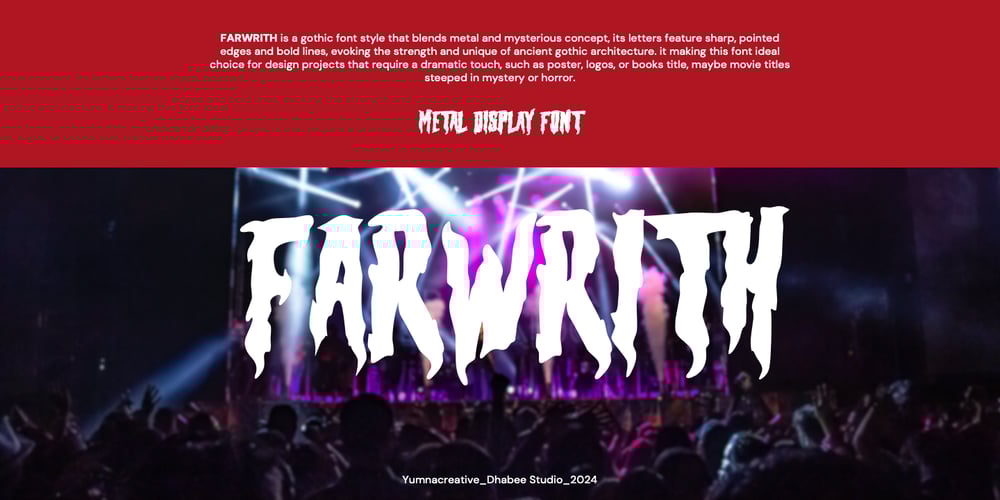
Farwrith
Farwrith font
Farwrith Font Family was designed by Dhimas Habibie and published by Yumnacreative. Farwrith contains 1 styles and family package options. Introducing Farwrith – Metal FontThis Font is a delicate, elegant and flowing handwritten font. It has beautiful and well as a unique blend of ligatures a letter, so that the authors compose it with a and little swirly embedding, so that a modern font is formed and ready to make a statement by adding elegant and unique flair to your next design project. Add it to your most creative ideas and notice how it makes them come alive!FEATURES- Uppercase and Lowercase letters- Numbering and Punctuations- Works on PC or Mac- Simple Installation- Support Adobe Illustrator, Adobe Photoshop, Adobe InDesign, also works on Microsoft WordHope you Like it.Thanks.